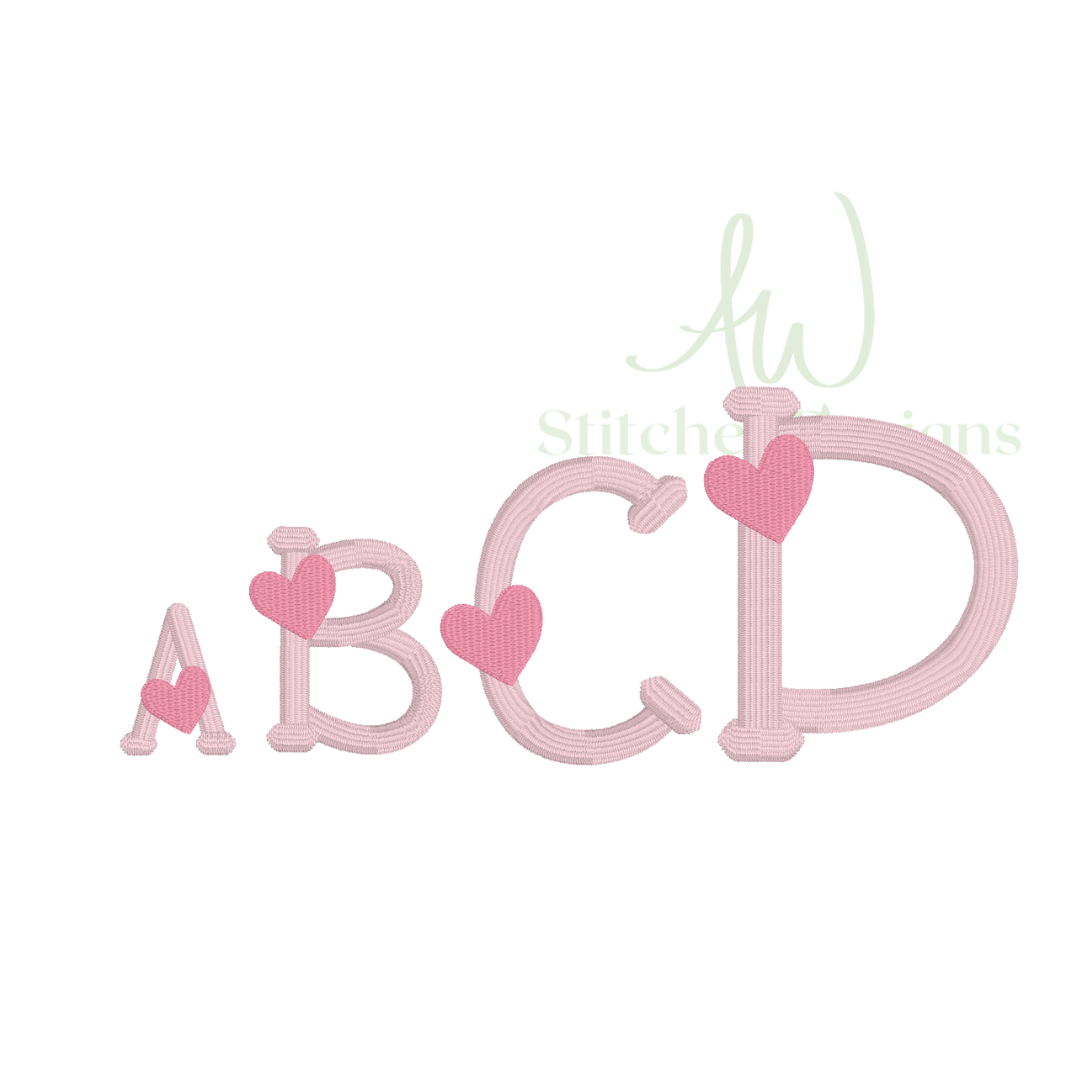
The Happy Heart Valentine's Day satin stitch font for machine embroidery design file 1"- 2.5" upper and lowercase letters with BX
The Happy Heart Valentine's Day satin stitch font for machine embroidery design file 1"- 2.5" upper and lowercase letters with BX.
-26 lower and upper case letters A through Z
1 inch
1.5 inch
2 inch
2.5 inch